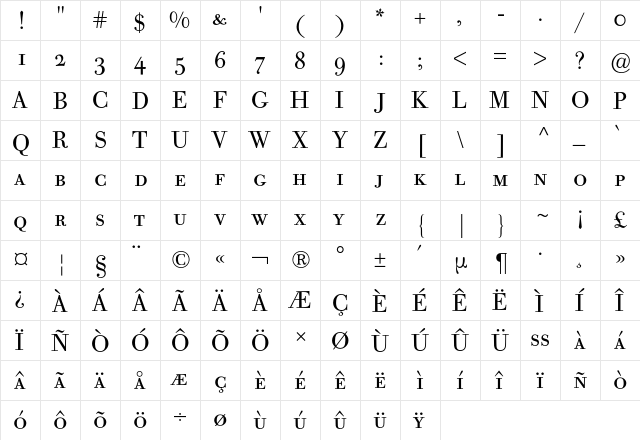
Bodoni Old Face Expert BQ Regular
Design Context for Bodoni Old Face Expert BQ Typeface
Bodoni Old Face Expert BQ is a composed and adaptable typeface that performs quietly and consistently across a wide range of design contexts.
Pro Tip: Use Bodoni Old Face Expert BQ in both headline and body roles to test its range before committing to a single application.